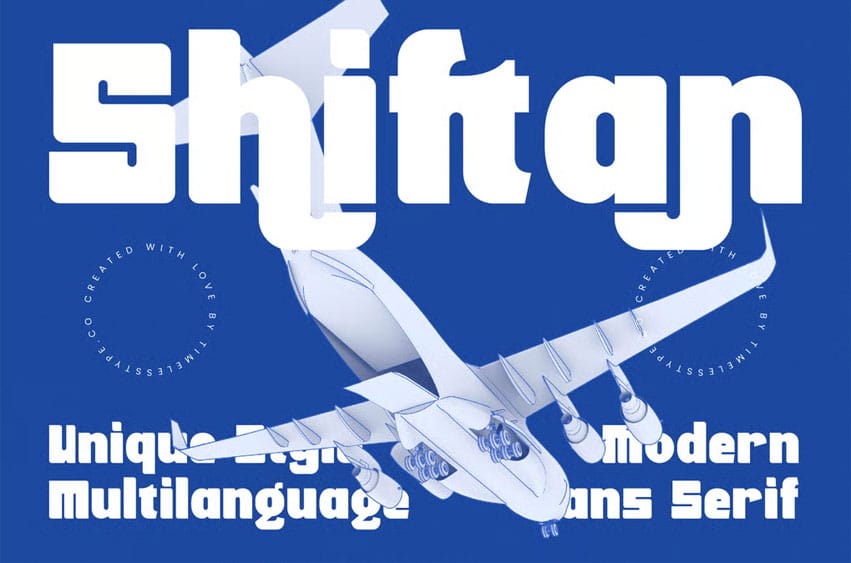
Shiftan Font is a bold modern sans serif font featuring thick, confident letterforms and a streamlined geometric construction designed for clarity, impact, and strong visual identity.
With its smooth rounded edges, blocky proportions, and futuristic personality, Shiftan is perfect for tech branding, aviation themes, sports graphics, packaging, editorial headlines, signage, and any project that needs a clean yet powerful display typeface. The font delivers stability, modernity, and a versatile aesthetic that stands out across digital and print media.